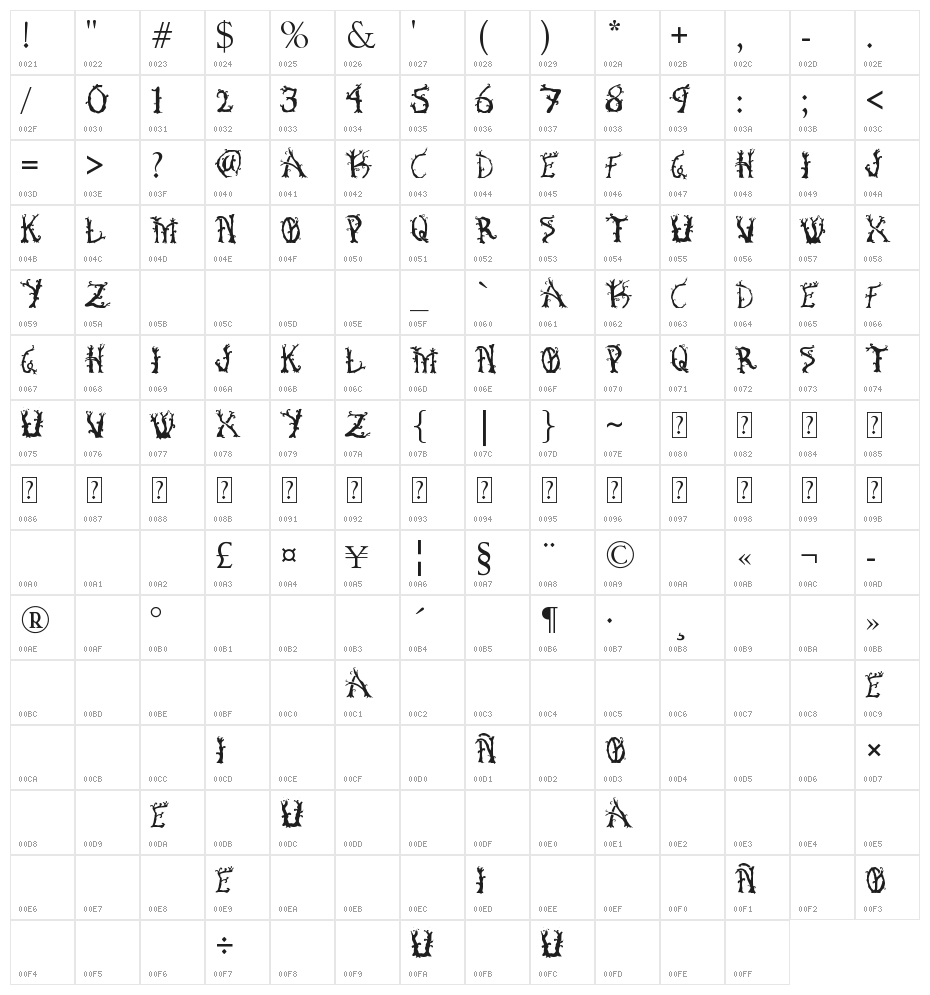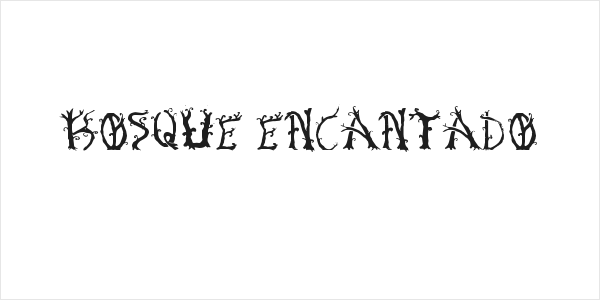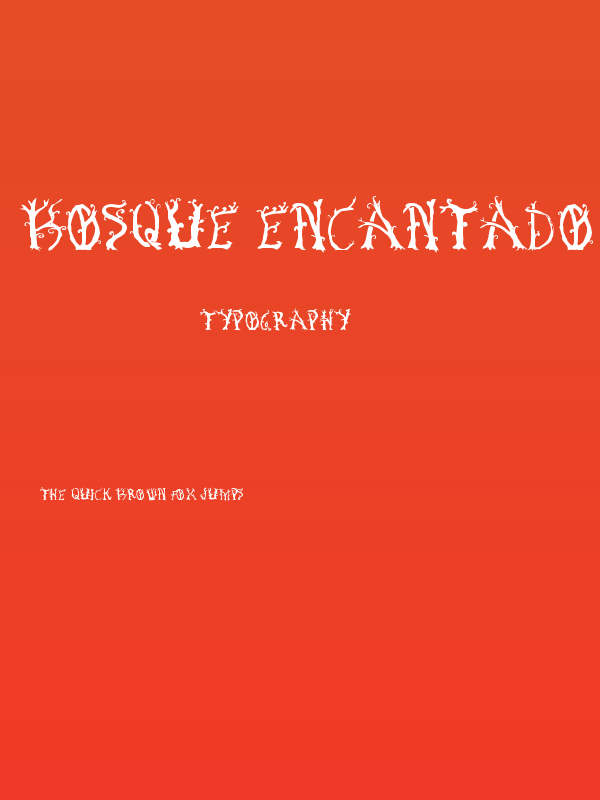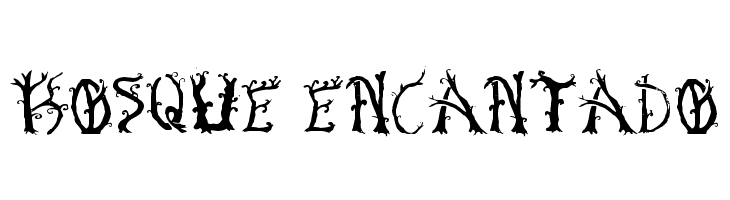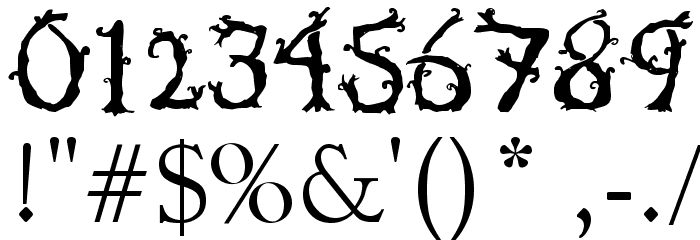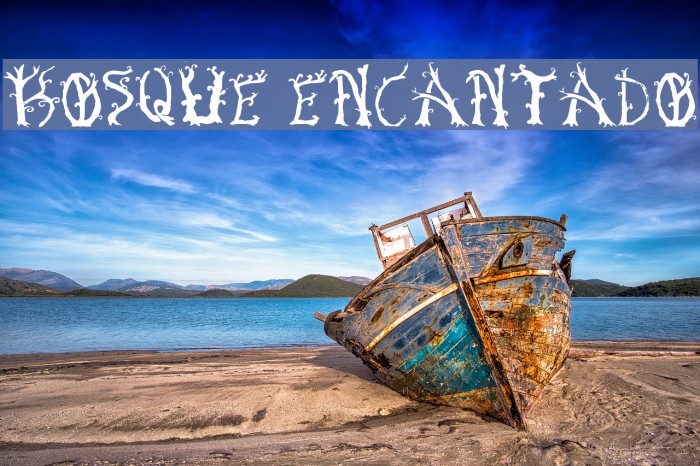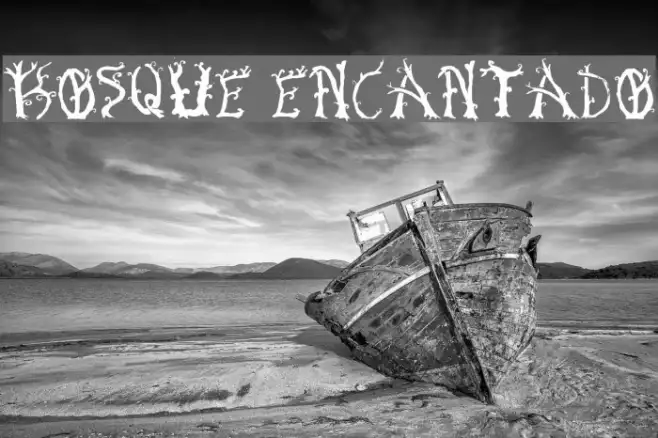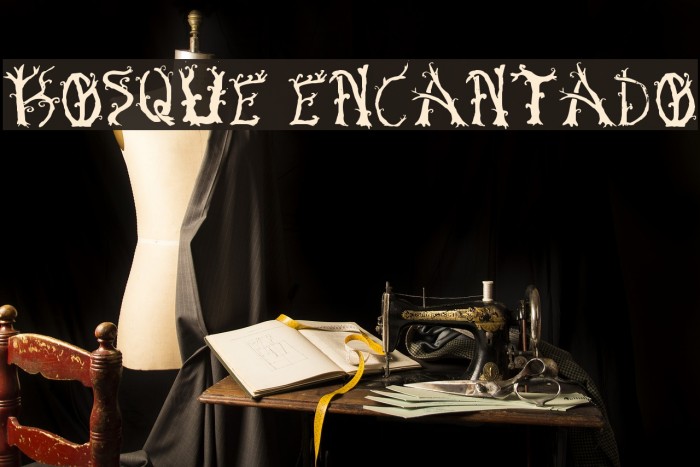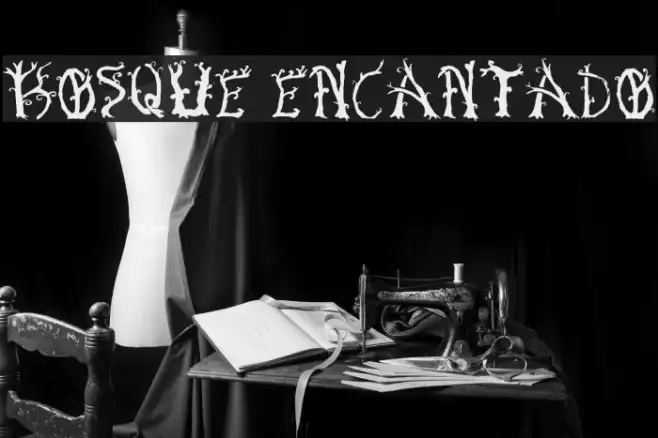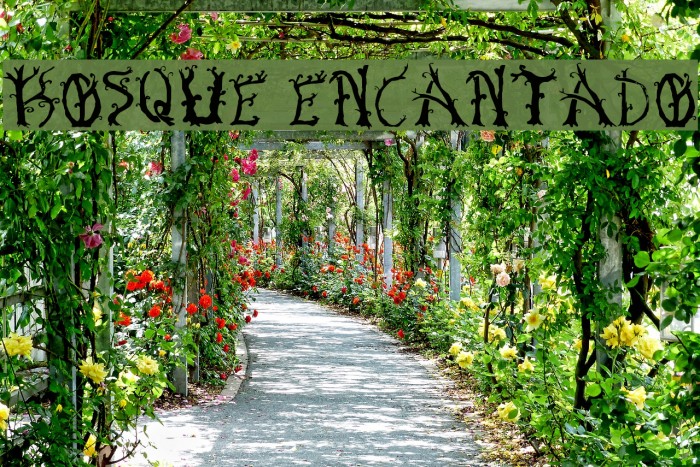
Bosque Encantado Font
Bosque Encantado Description
This font is a highly decorative and whimsical typeface that evokes a sense of mystery and fantasy. Each character is adorned with intricate, organic elements resembling vines or branches, giving it a unique, enchanted forest appearance. The letters are bold and have a playful yet slightly eerie quality, making them stand out in any design. The overall style is reminiscent of fairy tales and magical themes, perfect for creating an atmosphere of wonder and intrigue. The font maintains a consistent style across uppercase, lowercase, numbers, and special characters, ensuring versatility in various design projects.
| Proposed Projects | Ideal for fantasy book covers, themed event invitations, magical branding, and decorative posters. |